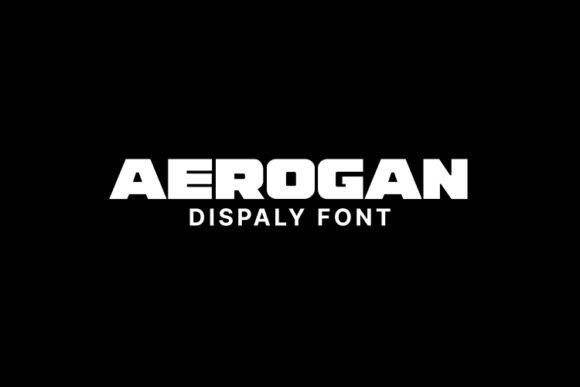
The Rush of Speed: Unleashing the Power of the Aerogan Font
Have you ever felt the rush of adrenaline as you watch a high-speed racing event, the roar of the engines and the blur of the track a blur in your mind? For designers, that same feeling can be captured in the visual language of a project. And for those who crave speed and precision, the Aerogan Font is the perfect tool to convey that sense of urgency and power.
A bold display typeface inspired by futuristic motorsport aesthetics, the Aerogan Font is designed to make a statement. With its strong geometric shapes and sharp cuts, it’s perfect for logos, esports branding, and high-impact headlines that demand attention. Whether you’re designing for digital or print, the Aerogan Font delivers a commanding presence that’s impossible to ignore.
Aerogan Font Key Features
- Unique Characteristics: The font features a unique blend of futuristic and minimalist elements, with clean lines and geometric shapes that give it a modern aesthetic.
Aerogan Font Review
I recently had the chance to dive into the Aerogan font, and I must say it’s a mixed bag. On the one hand, there are some aspects that I really enjoy ✨.
- The Aerogan font has a unique, futuristic feel to it. The subtle curves and angular lines give it a sense of high-tech sophistication.
- The font is highly legible, even at smaller font sizes. This makes it suitable for a wide range of applications, from digital interfaces to print materials.
- The Aerogan font has a decent character set, with a good selection of languages supported.
However, there are also some limitations to consider ⚠️.
- The font lacks a bit of personality, feeling somewhat generic and overused.
- The weight distribution could be improved, with some weights feeling a bit too similar to one another.
- The font may not be the best choice for projects that require a more traditional or classic look.
Overall, I’d say the Aerogan font is a solid, if unremarkable, addition to any designer’s toolkit. While it won’t blow anyone away with its unique features, it’s a reliable choice for a wide range of applications.
Getting the Most Out of Aerogan Font
Aerogan Font is a versatile and modern font that can be used in a variety of design projects. To get the most out of it, try pairing it with bold and clean lines, and use it in headings and titles to add visual interest.
Aerogan Font is ideal for use in modern branding, advertising, and digital design projects. It’s also great for use in titles, headings, and body text where a clean and modern look is desired.